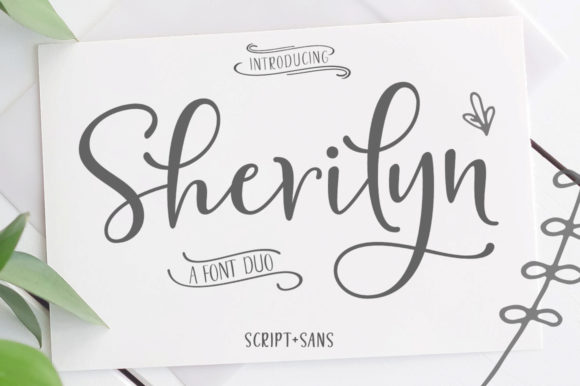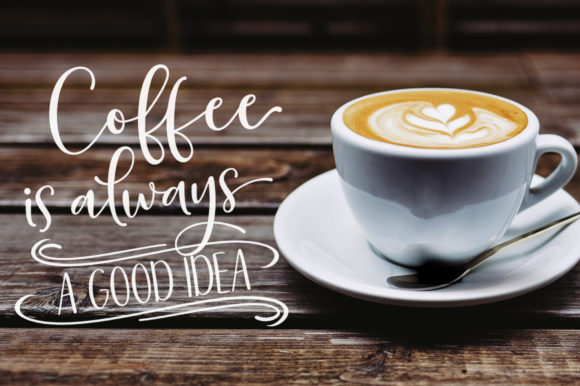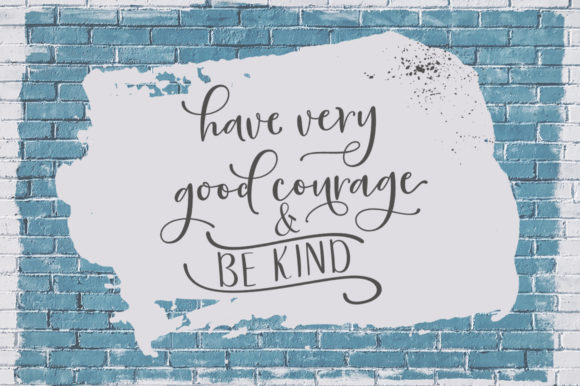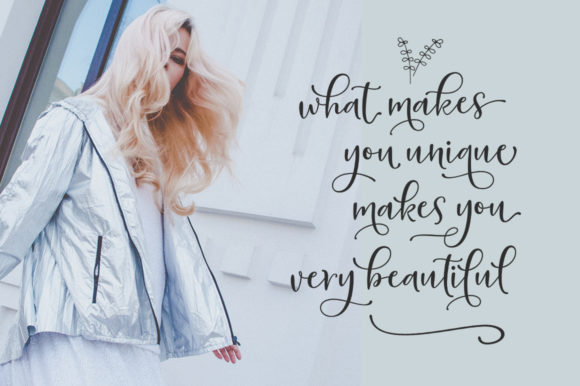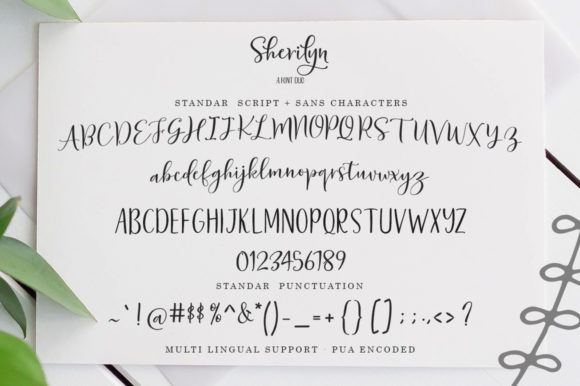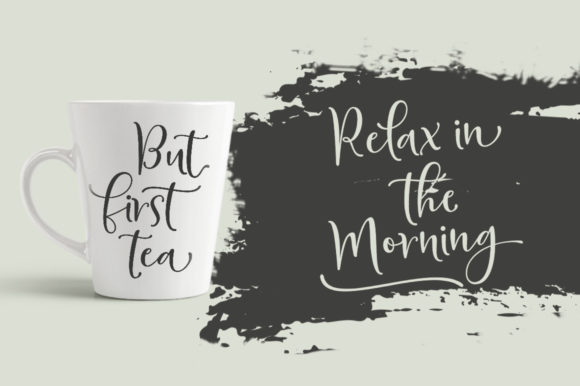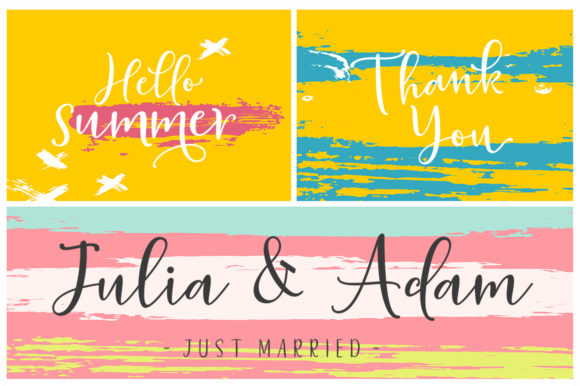
Sherilyn Duo Font
About Sherilyn Duo Font
Sherilyn is a light and romantic font duo with a playful twist. Get inspired by its bold swashes and minimalist charm.